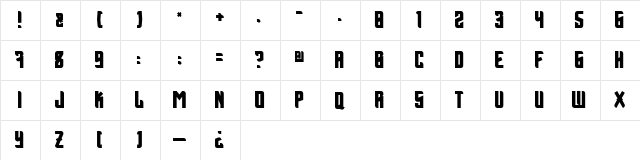
Bill x AspekHndz Regular
Design Context for Bill x AspekHndz Typeface
Bill x AspekHndz offers clean, dependable letterforms without strong stylistic allegiance, making it a practical choice for designers who need flexibility.